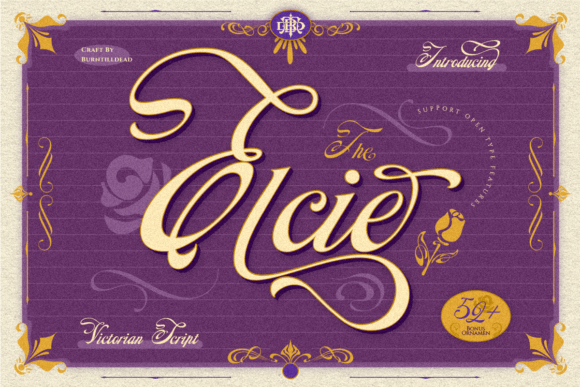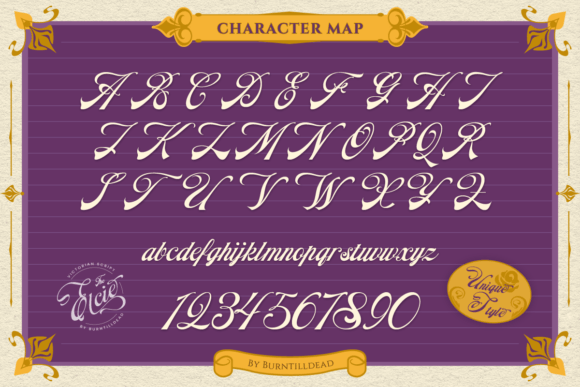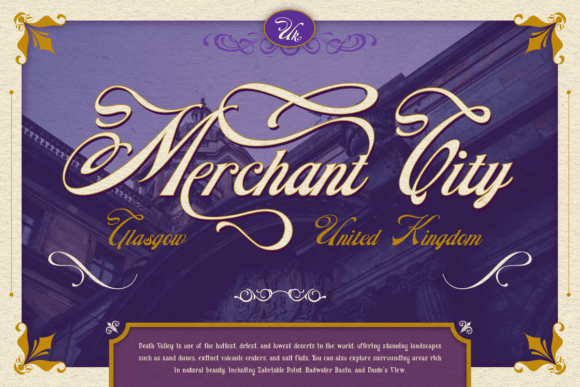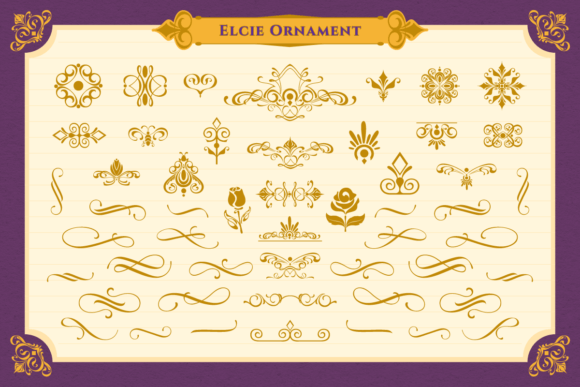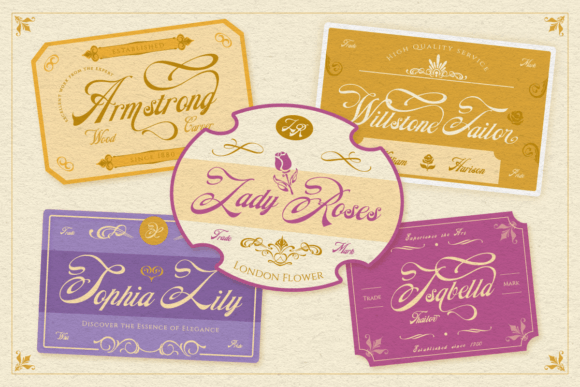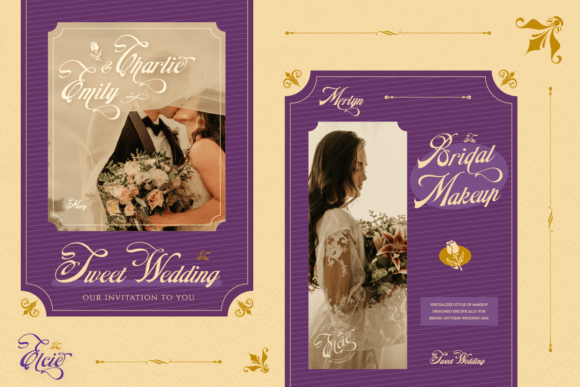
Unlock the Elegance of the Victorian Era with Elcie Font
Are you looking to add a touch of Victorian sophistication to your design projects? Look no further than Elcie Font, a stunning typeface that embodies the classic elegance of the Victorian era. With its intricate details and ornate flourishes, Elcie Font is the perfect choice for designers and crafters seeking to create visually striking designs that evoke a sense of nostalgia and refinement.
What is Elcie Font?
Elcie Font is a beautifully crafted typeface designed to transport your designs back to the opulent Victorian era. This font is characterized by its classic, elegant, and sophisticated feel, making it an ideal choice for a wide range of design applications, including logotypes, label designs, book covers, business cards, invitation cards, and more.
Key Features of Elcie Font
So, what sets Elcie Font apart from other typefaces? Here are some of its key features:
- Victorian Style: Elcie Font boasts an authentic Victorian style, complete with intricate details and ornate flourishes that evoke the grandeur of the era.
- Free Ornaments: To add an extra layer of elegance to your designs, Elcie Font comes with a range of free ornaments that can be used to create stunning visual effects.
- High Versatility: Whether you’re designing a logotype, label, or invitation card, Elcie Font is perfectly suited to a wide range of design applications.
- Elegant and Sophisticated: Elcie Font exudes an air of elegance and sophistication, making it perfect for designers seeking to create refined and luxurious designs.
How to Create a Victorian-Style Design with Elcie Font
Creating a Victorian-style design with Elcie Font is surprisingly easy. Here are some tips to get you started:
- Choose a Color Scheme: Victorian designs often feature rich, bold colors. Consider using a palette of deep reds, blues, and golds to create a luxurious feel.
- Select a Background: A ornate background or texture can add depth and interest to your design. Consider using a vintage-inspired pattern or a distressed texture.
- Add Ornaments: Elcie Font’s free ornaments are a great way to add an extra layer of elegance to your design. Use them to create flourishes, borders, or other decorative elements.
- Experiment with Typography: Elcie Font is a versatile typeface that can be used in a variety of ways. Experiment with different font sizes, styles, and arrangements to create a unique look.
Design Ideas with Elcie Font
Elcie Font is a versatile typeface that can be used in a wide range of design applications. Here are some ideas to get you started:
- Logotype Design: Create a stunning logotype for a luxury brand or business using Elcie Font.
- Label Design: Design a beautiful label for a product or packaging using Elcie Font.
- Book Cover Design: Create a eye-catching book cover using Elcie Font and add a touch of Victorian elegance to your design.
- Invitation Cards: Design a beautiful invitation card for a wedding, party, or other special occasion using Elcie Font.
- Business Cards: Create a professional and elegant business card using Elcie Font.
| Font Name | Elcie Font |
| Author | Burntilldead |
In conclusion, Elcie Font is a stunning typeface that is perfect for designers and crafters seeking to create Victorian-style designs. With its intricate details, ornate flourishes, and free ornaments, Elcie Font is the ideal choice for a wide range of design applications. Whether you’re designing a logotype, label, book cover, or invitation card, Elcie Font is sure to add a touch of elegance and sophistication to your design.